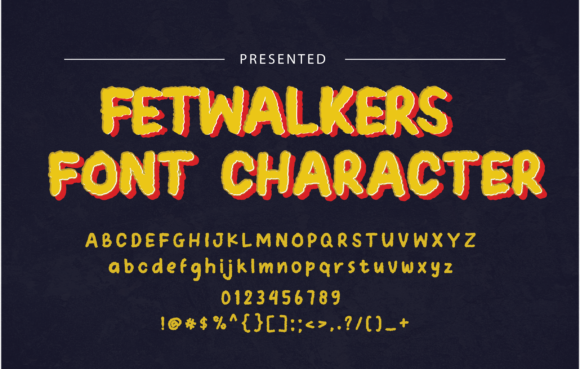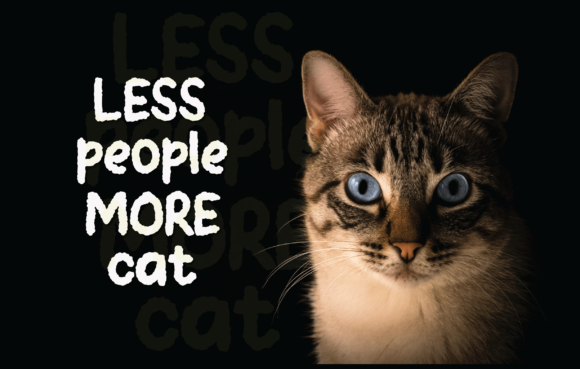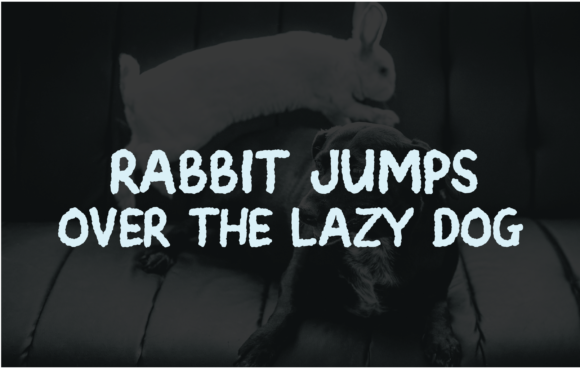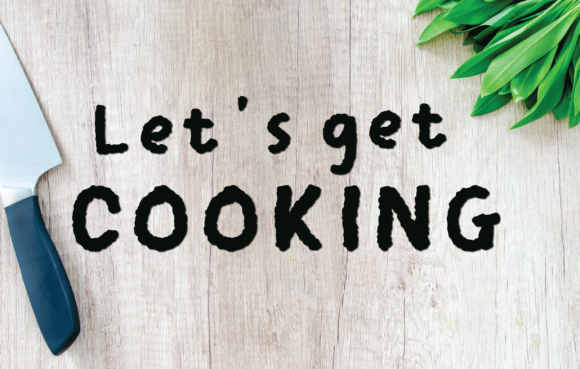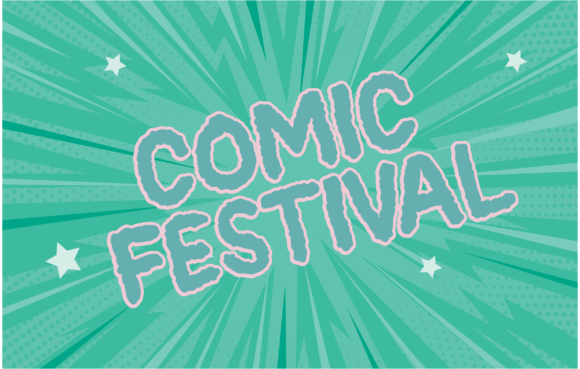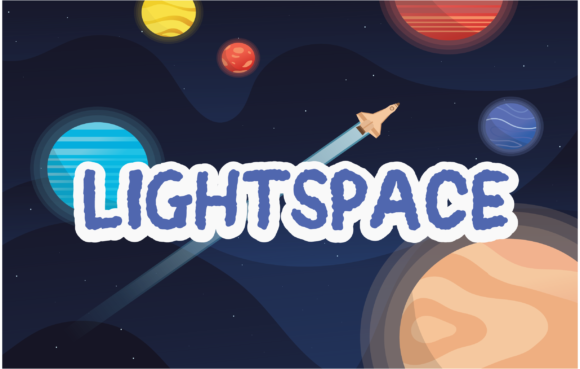
Introducing Fetwalkers Font: The Cute and Friendly Handwritten Font for Your Design Needs
Are you a designer, crafter, or DIY enthusiast looking for a font that can add a touch of playfulness and quirkiness to your projects? Look no further than Fetwalkers Font! This adorable handwritten font is perfect for a wide range of design applications, from branding and posters to crafty DIY projects.
What is Fetwalkers Font?
Fetwalkers Font is a carefully crafted handwritten font that exudes a sense of friendliness and approachability. Its playful and quirky nature makes it an excellent choice for designers who want to add a personal touch to their work. Whether you’re creating a logo, poster, or social media graphic, Fetwalkers Font is sure to make your design stand out.
Key Features of Fetwalkers Font
- Cute and Friendly: Fetwalkers Font is designed to be adorable and approachable, making it perfect for designs that require a personal touch.
- Playful and Quirky: This font has a playful and quirky nature that will add a unique charm to your designs.
- Handwritten: Fetwalkers Font is a handwritten font, giving it a personal and authentic feel.
- Versatile: This font is suitable for a wide range of design applications, from branding and posters to crafty DIY projects.
Use Cases for Fetwalkers Font
Fetwalkers Font is an incredibly versatile font that can be used in a variety of design projects. Here are some use cases to get you started:
- Branding: Use Fetwalkers Font to create a unique and memorable logo for your business or brand.
- Posters: Add a playful touch to your posters with Fetwalkers Font, making them stand out and grab attention.
- Crafty DIY Projects: Fetwalkers Font is perfect for crafty DIY projects, such as handmade cards, gift tags, and scrapbooking.
- Social Media Graphics: Use Fetwalkers Font to create engaging social media graphics that will help you connect with your audience.
Why Choose Fetwalkers Font?
With so many fonts available, why choose Fetwalkers Font? Here are a few reasons why designers and crafters love this font:
- Unique and Playful: Fetwalkers Font has a unique and playful nature that will set your designs apart from the rest.
- Easy to Read: Despite its playful nature, Fetwalkers Font is easy to read, making it perfect for designs that require a clear message.
Fetwalkers Font is a cute and friendly handwritten font that’s perfect for designers, crafters, and DIY enthusiasts. Its playful and quirky nature makes it an excellent choice for a wide range of design applications, from branding and posters to crafty DIY projects. With its unique and playful nature, ease of use, and customizability, Fetwalkers Font is sure to become a favorite in your design toolkit.